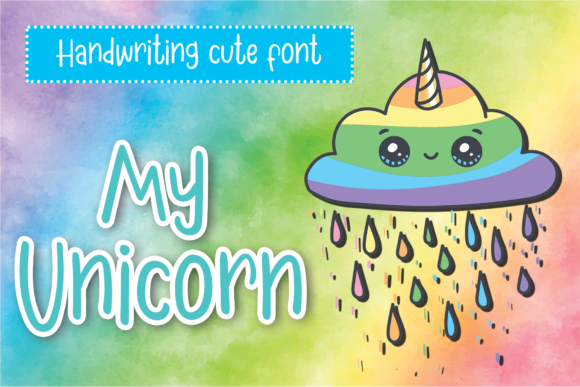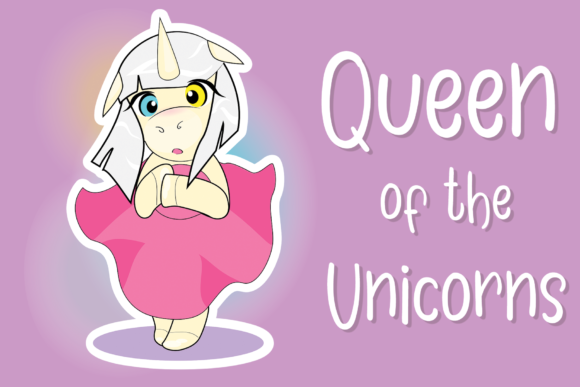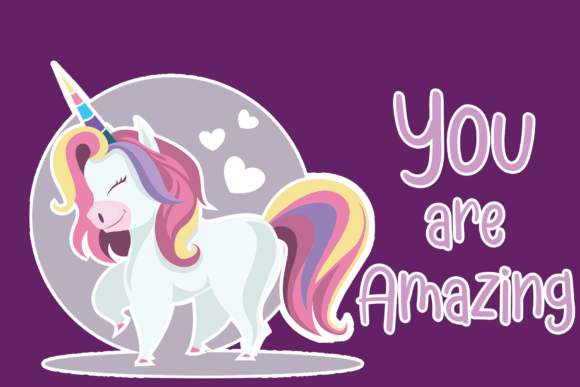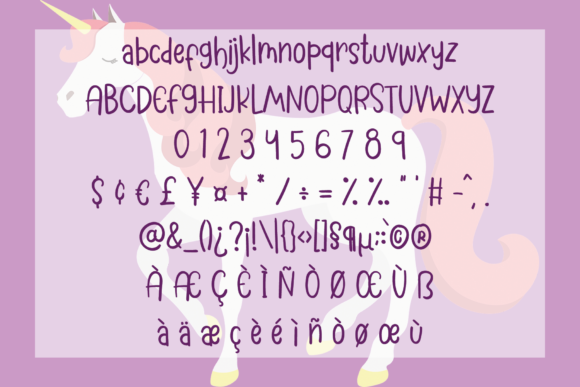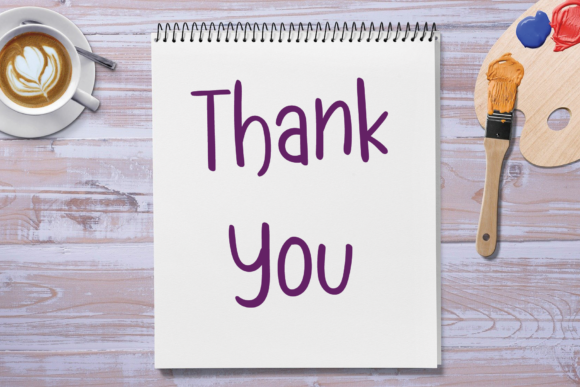
My Unicorn Font
About My Unicorn Font
My Unicorn is a magical script font that combines elegance with a touch of whimsy. With its graceful letterforms and enchanting style, this font is perfect for a variety of creative projects, whether you’re designing for Instagram, creating calligraphy pieces, or working on DIY projects.
The delicate curves and intricate details of My Unicorn give it a unique and captivating appearance. Each letter has been carefully crafted to evoke a sense of magic and wonder, making it ideal for designs that aim to spark imagination and create a dreamy atmosphere.
Whether you’re designing social media posts, quotes, invitations, or branding materials, My Unicorn adds a touch of elegance and charm to your creations. Its versatility allows it to adapt to different design styles and themes, from romantic and whimsical to mystical and fantasy-inspired.
Using My Unicorn in your designs can transform your creative ideas into true works of art. Its flowing and graceful letterforms create a sense of movement and fluidity, adding a dynamic element to your typography. The font’s elegance and whimsy bring a touch of fantasy and playfulness to any project.
Whether you’re a calligraphy enthusiast, a social media content creator, or a DIY enthusiast, My Unicorn offers a versatile and magical script font that elevates your designs to a new level. With its artful and captivating style, this font adds a touch of enchantment to any creative endeavor.